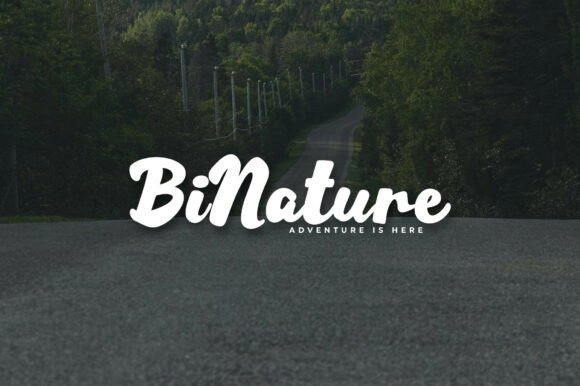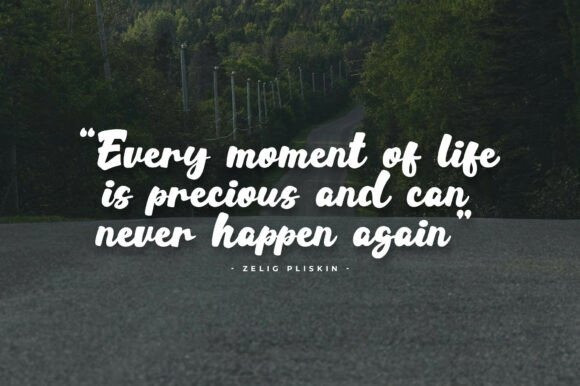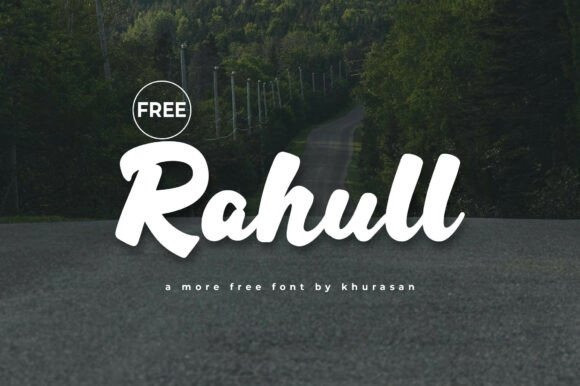
Rahull Brush Font
Rahull Brush Font is a modern handwritten script font with a clean, flowing style that mimics natural penmanship.This bold, playful script captures the essence of modern brush lettering with its thick strokes and soft, rounded edges. The Rahull typeface is exceptionally versatile, making it a go-to choice for casual branding, social media quotes, and eye-catching packaging.
Because the Rahull font balances weight and legibility so well, it excels in large-scale formats such as storefront signage and billboard headers. Use the Rahull typeface to add a personal, “handmade” touch to digital content or physical products that need to feel friendly, energetic, and contemporary.
Its elegant monoline strokes and slightly slanted letterforms give it a casual yet refined look, perfect for adding a personal touch to any design. Rahull works beautifully across a wide range of creative projects, including branding, blog headers, social media graphics, quotes, invitations, product packaging, and minimalist logos.Designed for versatility and legibility, this font brings warmth and authenticity while maintaining a sleek, contemporary feel.